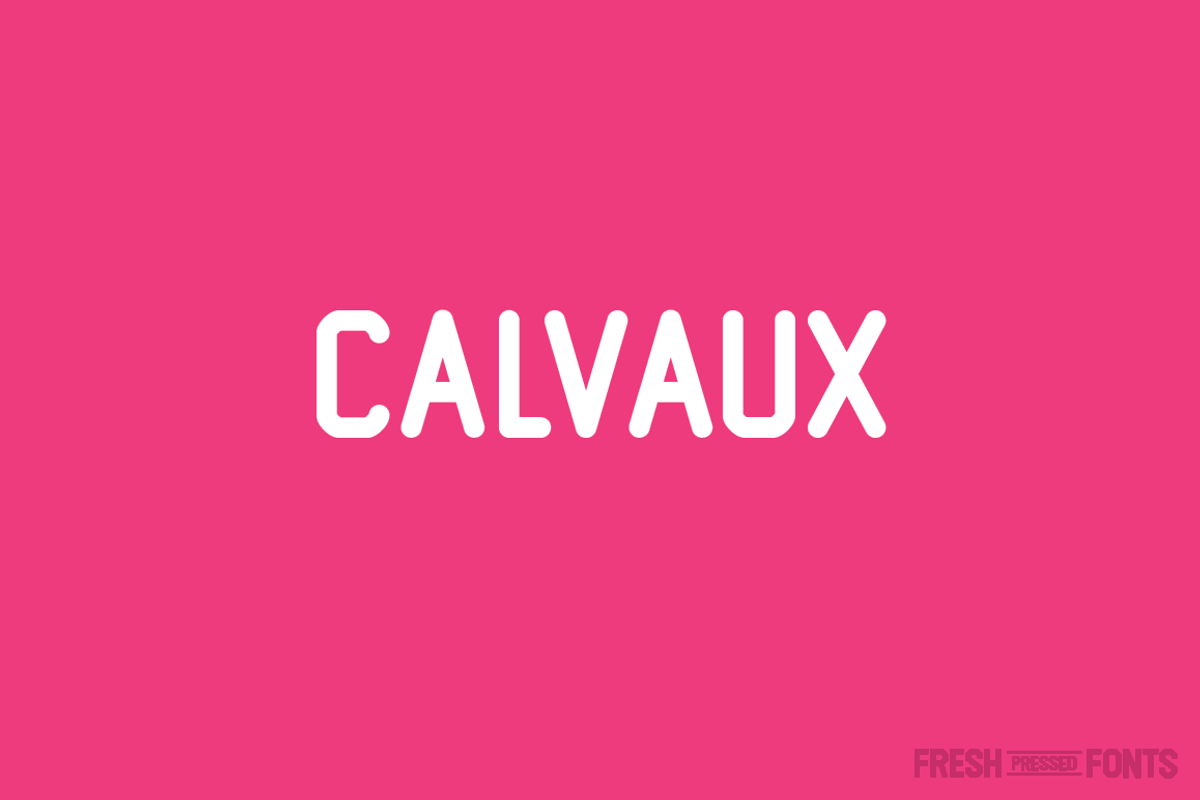
Please note, to use this font for commercial purposes, you must purchase the full version. Calvaux is a modern and sophisticated font family that offers a wide range of styles, from sleek sans-serif to elegant serif variations. Perfect for logos, branding, websites, editorial designs, and more, this font family provides versatility and a clean, professional aesthetic. Whether you're designing for a corporate brand, a luxury product, or a creative project, Calvaux enhances your work with its contemporary and stylish feel. Test it out and enjoy free download access for personal use. Experience the refined beauty and versatility of Calvaux Font Family Free Download before purchasing the commercial license. Add a modern, professional touch to your designs with Calvaux.